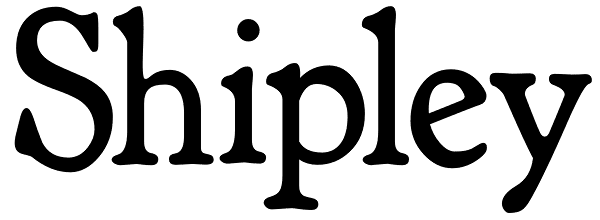
Shipley
Shipley is based on Kennerley, which is regarded by some as Goudy's most beautiful type, but which seems to have suffered from desuetude in recent decades. This version is based on vintage printed samples, primarily a leaflet from the mid-1920s...